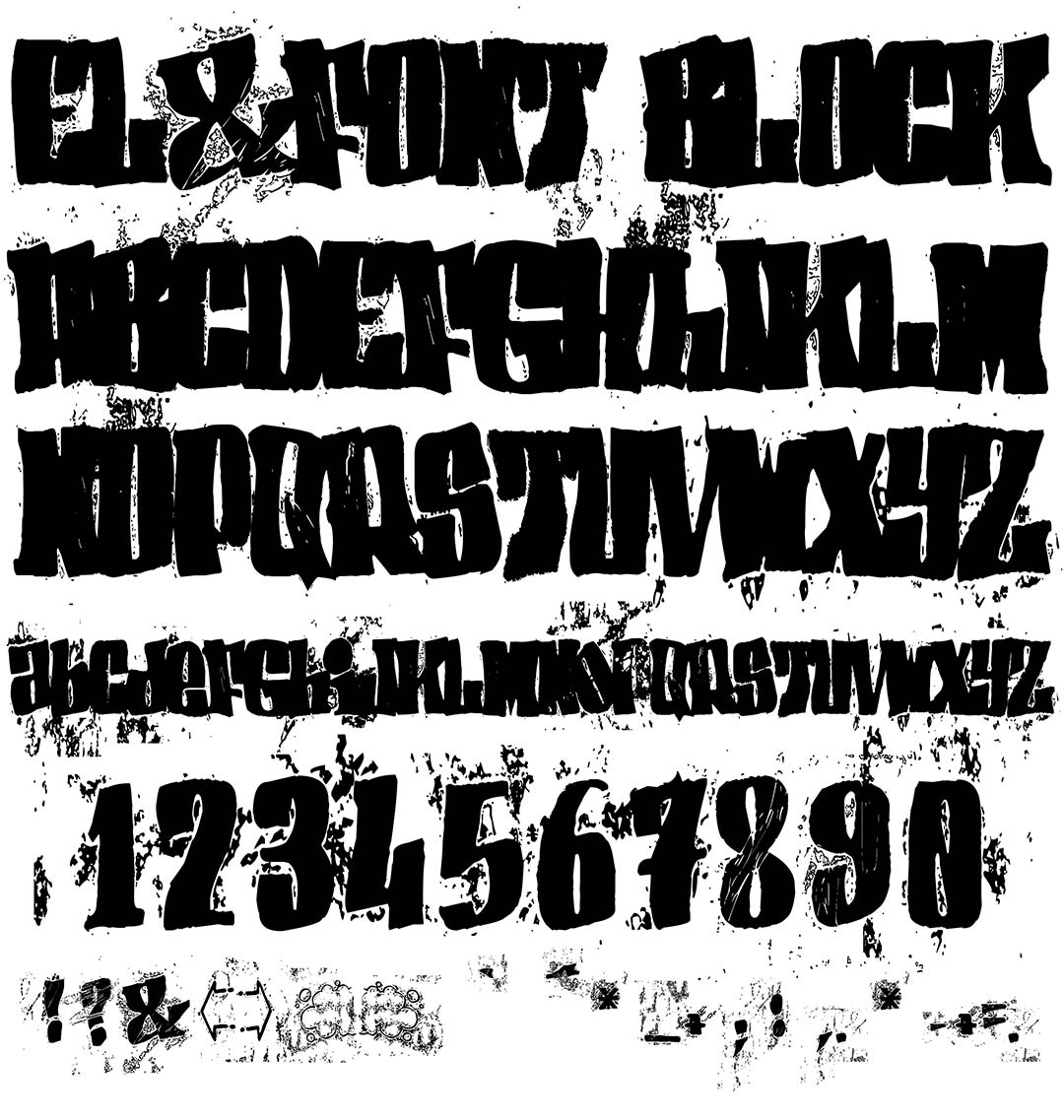
El&Font Block
El&Font Block Graffiti Alphabet
El&Font Block Graffiti Font Family
This font includes full uppercase & lowercase alphabets as well as numbers, punctuation & symbols. There are also some dope clouds, arrow & grunge objects to add. The font is solid & fairly condensed.